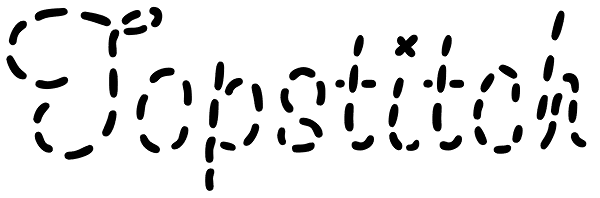
Topstitch
Topstitch is a font that looks like authentic hand stitching. It's a non-joining script, just slightly imperfect like real handmade embroidery. The letterforms are reminiscent of Murray Hill with their large x-height and open loops.